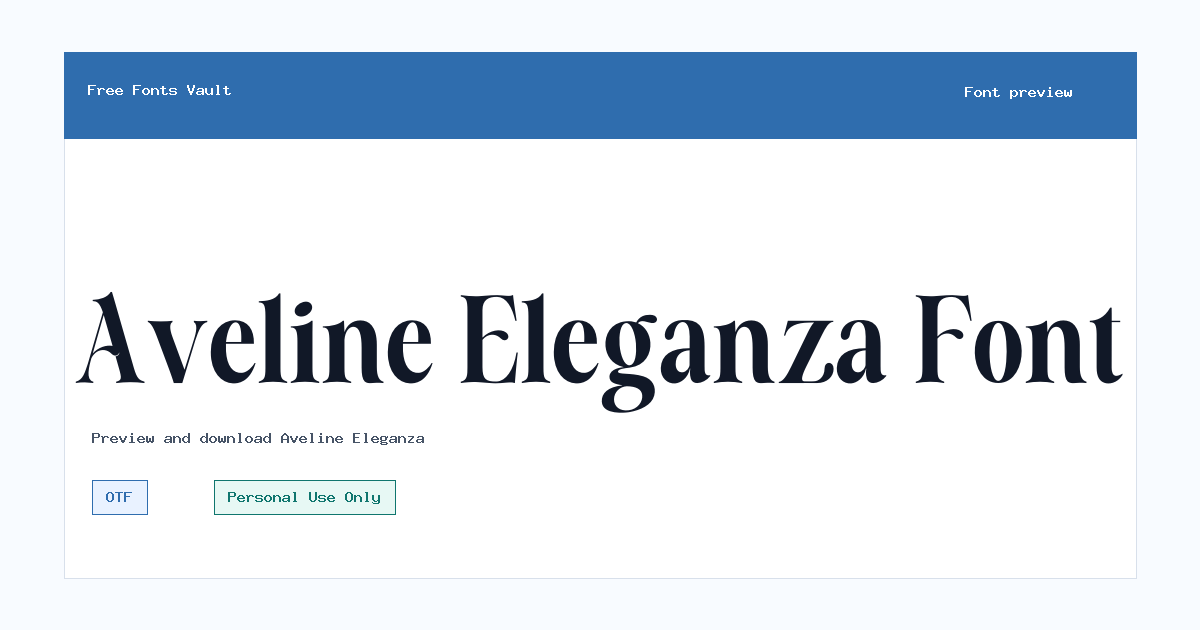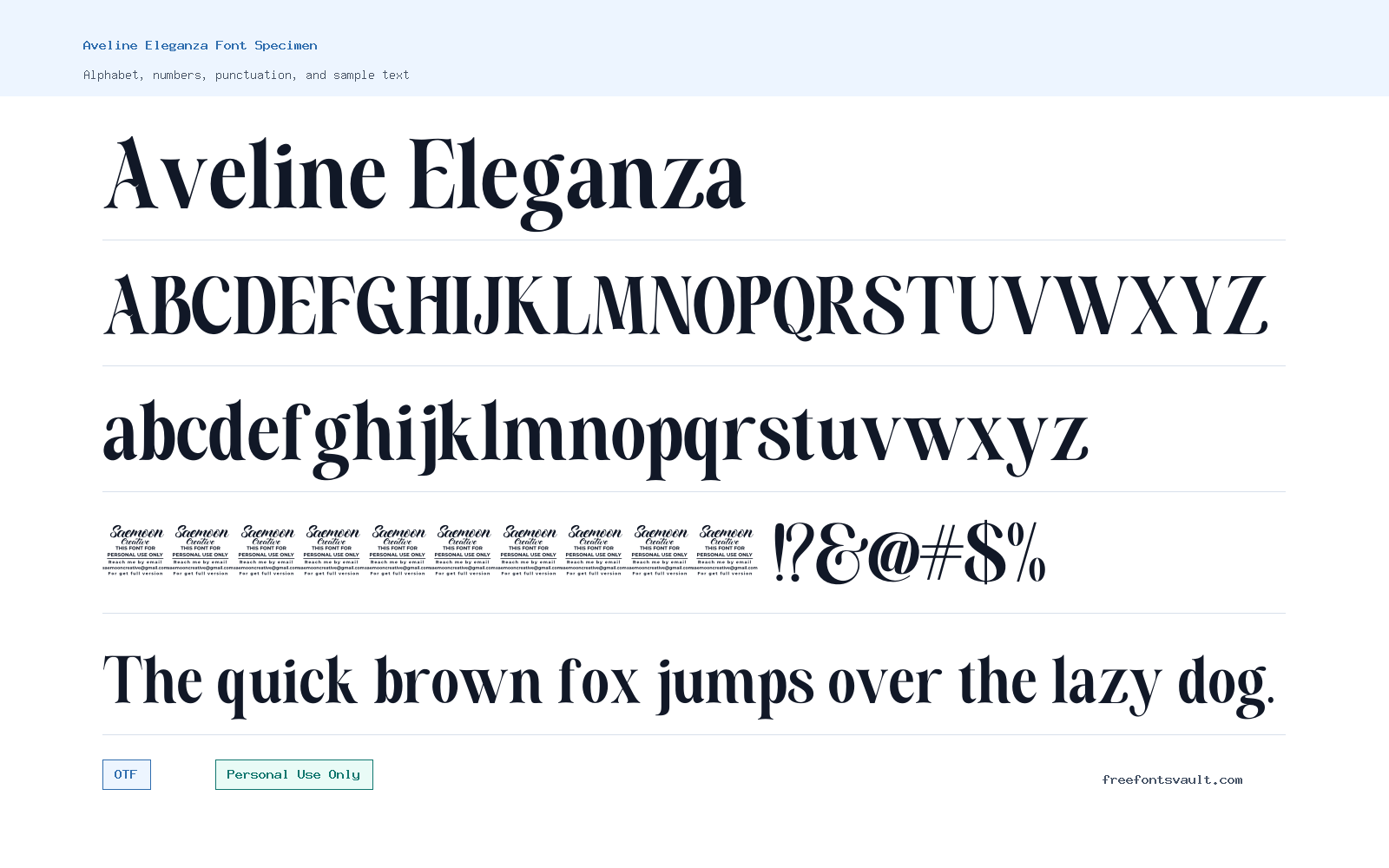
Aveline Eleganza
Aveline Eleganza Font
• Designer Sapto Susilo
Aveline Eleganza is a serif display font with a refined, graceful look suited to short pieces of text. It is best approached as a decorative choice for personal projects where style matters more than long-form reading.
About Aveline Eleganza
Aveline Eleganza works well when you want a polished serif voice without making the layout feel heavy. Its name and styling point toward an elegant display direction, so it is most useful for titles, invitations, personal branding drafts, quote graphics, mood boards, and social media artwork. Use it where the words have room to breathe: a logo concept, a wedding-style heading, a boutique label mockup, or a large hero line will show more character than a dense paragraph.
• Serif display style suited to elegant short text, headings, and personal-use graphics.
• Invitations, quote images, greeting cards, and personal stationery designs.
The designer is listed as Sapto Susilo. No foundry name or designer link is listed for the font listing.
Use Aveline Eleganza at larger sizes where its serif details can be seen clearly. It is a better fit for display text than for long paragraphs. Before using it in a finished design, preview names, accented words, punctuation, and number-heavy text so you can catch spacing or character issues early. For a balanced layout, pair it with a quiet sans serif for supporting information or a restrained text serif when you need a more traditional feel.
Who designed Aveline Eleganza?
The designer is listed as Sapto Susilo.
What is Aveline Eleganza best used for?
It is best for short display text such as invitations, headings, quote graphics, logo drafts, labels, and personal social media designs.
Should I use Aveline Eleganza for body text?
It is better for display use. For paragraphs or small text, pair it with a simpler, more readable font.